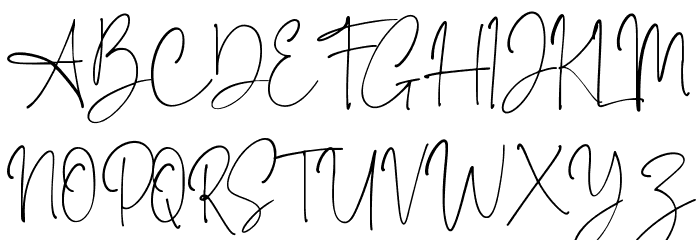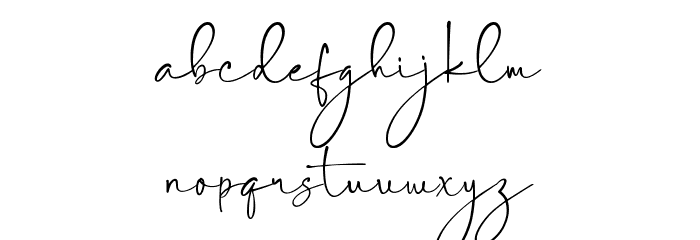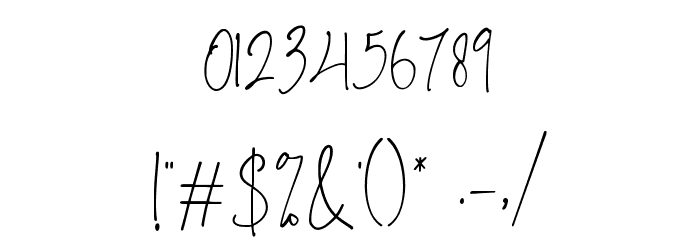
Sabila Renytha Font
A delicate and flowing handwritten script font with elegant curves and a modern touch.
Elegant handwritten script font.
- Proposed Projects: Invitations, greeting cards, branding, and logos.
- Use Case: Logos, Invitations, Greeting cards